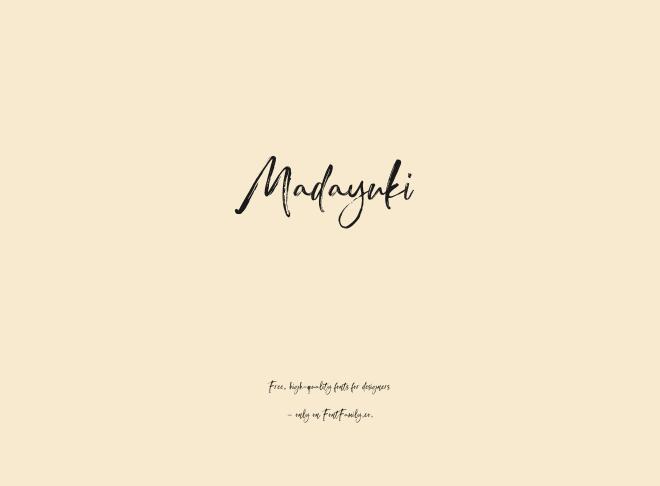
Madayuki Font
Madayuki Font, designed by Mats-Peter Forss, is a modern, playful, and elegant handwritten font that adds a touch of charm to any design project. Released in 2021, this font offers a unique blend of classic and contemporary styles. Its playful curves and sleek lines make it an excellent choice for logo design, branding, wedding invitations, greeting cards, and any other design that requires a personalized feel. Madayuki Font stands out with its unique style, making a strong impression on viewers and adding an element of sophistication to your designs. Free for personal use, it's an ideal choice for designers looking to inject a touch of elegance and modernity into their work.